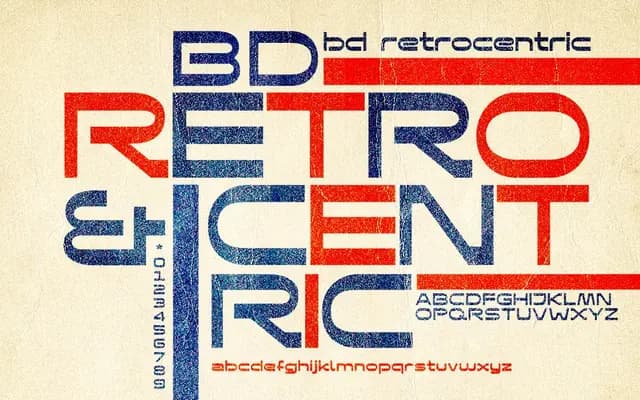
BD Retrocentric
A single-weight display typeface drawing on 1960s and 70s logotype conventions, blending retro form with a faintly futurist edge.
Inspired by the corporate logotypes of the sixties and seventies, BD Retrocentric occupies the space between retro nostalgia and period-specific futurism. Available in one weight with broad Latin language support across more than twenty languages, it is aimed at identities and headline work that wants to evoke the typographic confidence of large traditional companies from that era. The character set covers standard Latin extended glyphs including diacritics for Western and Northern European languages.
A display typeface drawing on 1960s and 70s logotype aesthetics, blending retro and futurist influences into a single eccentric style. Its single weight and decorative character place it firmly in the display category.